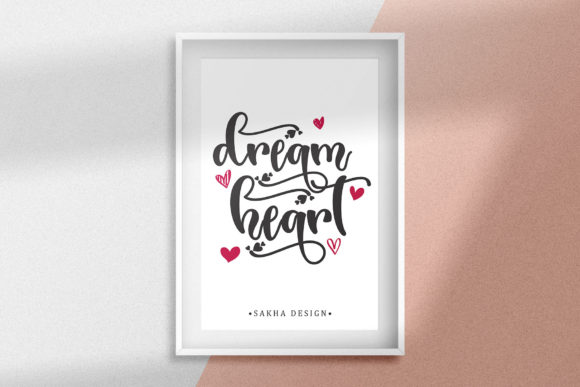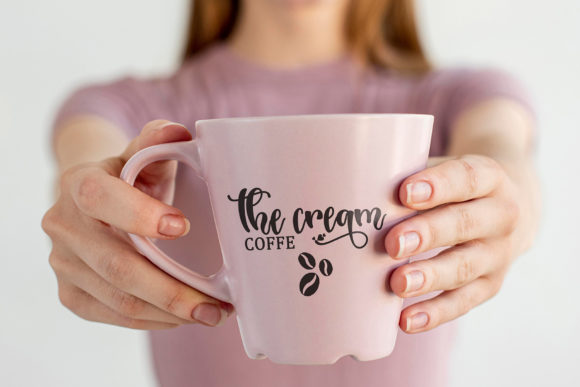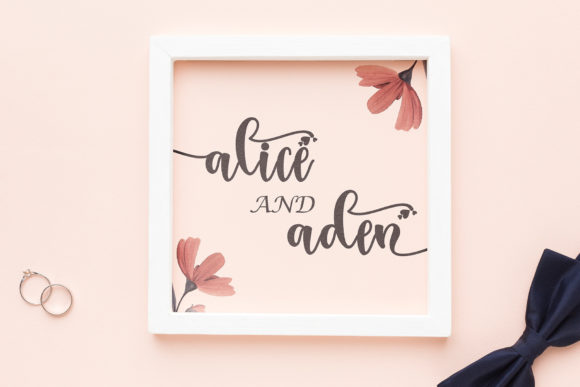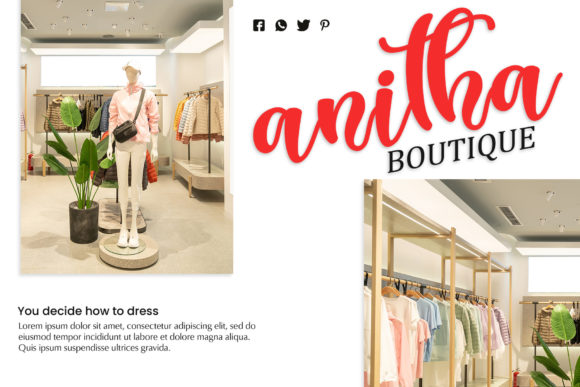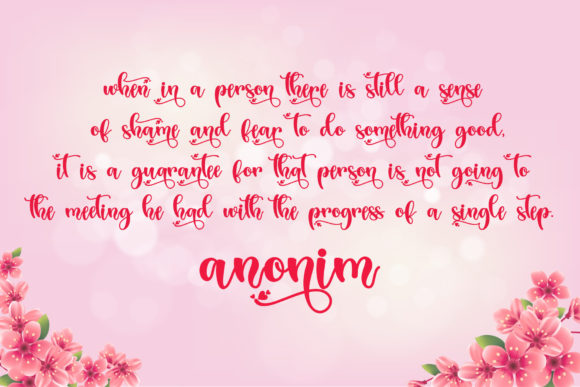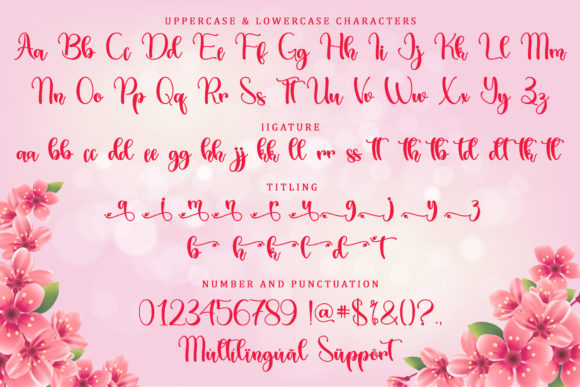
Dream Heart Font: The Ultimate Romantic Calligraphy for Designers and Crafters
Are you a designer or crafter looking for a font that can add a touch of romance and sweetness to your projects? Look no further than the Dream Heart Font! This beautifully crafted calligraphy font is perfect for anyone who wants to create stunning and emotive designs that capture the heart.
What is Dream Heart Font?
Dream Heart Font is a romantic and sweet calligraphy font that is meticulously designed to bring a touch of elegance and sophistication to your designs. With its neat and highly detailed craftsmanship, this font is sure to impress. Whether you’re creating wedding invitations, Valentine’s Day cards, or simply want to add a personal touch to your digital designs, Dream Heart Font is the perfect choice.
Key Features of Dream Heart Font
- Romantic and Sweet Design: Dream Heart Font is designed to be romantic and sweet, making it perfect for designs that require a touch of elegance and sophistication.
- Neatly Crafted and Highly Detailed: This font is meticulously designed to ensure that every letter and swash is perfect, giving your designs a professional and polished look.
- PUA Encoded: Dream Heart Font is PUA encoded, which means you can access all glyphs and swashes with ease. This makes it simple to create stunning designs that are full of personality.
Benefits of Using Dream Heart Font
So why should you choose Dream Heart Font for your designs? Here are just a few benefits of using this amazing font:
- Adds a Touch of Romance and Sweetness: Dream Heart Font is designed to bring a touch of romance and sweetness to your designs, making it perfect for projects that require a personal and emotive touch.
- Perfect for a Variety of Projects: Whether you’re creating wedding invitations, Valentine’s Day cards, or simply want to add a personal touch to your digital designs, Dream Heart Font is the perfect choice.
- Easily Accessible Glyphs and Swashes: With PUA encoding, you can access all glyphs and swashes with ease, making it simple to create stunning designs that are full of personality.
- Highly Versatile: Dream Heart Font can be used for a wide range of projects, from digital designs to print materials, making it a great addition to any designer’s or crafter’s toolkit.
Tips and Inspiration for Using Dream Heart Font
Here are a few tips and inspiration ideas for using Dream Heart Font:
- Wedding Invitations: Use Dream Heart Font to create stunning wedding invitations that set the tone for a romantic and unforgettable day.
- Valentine’s Day Cards: Create beautiful Valentine’s Day cards that are full of love and romance with Dream Heart Font.
- Digital Designs: Add a personal touch to your digital designs, such as social media graphics or blog posts, with Dream Heart Font.
- Mix and Match with Other Fonts: Experiment with pairing Dream Heart Font with other fonts to create unique and eye-catching designs.
Dream Heart Font is a romantic and sweet calligraphy font that is perfect for designers and crafters who want to add a touch of elegance and sophistication to their designs. With its neat and highly detailed craftsmanship, PUA encoding, and highly versatile design, this font is sure to become a favorite in your toolkit. So why wait? Download Dream Heart Font today and start creating stunning designs that capture the heart!